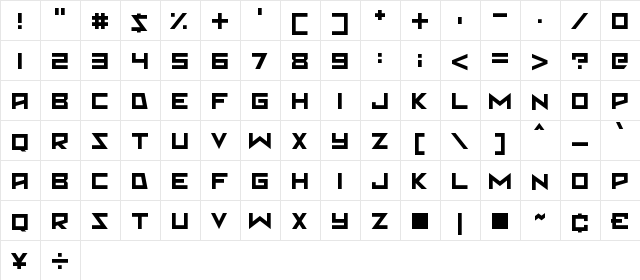
Martian Sunrise Regular Font Preview
Martian Sunrise Regular
Martian Sunrise Regular Font Details
Design Context for Martian Sunrise Typeface
Martian Sunrise is a composed and adaptable typeface that performs quietly and consistently across a wide range of design contexts.